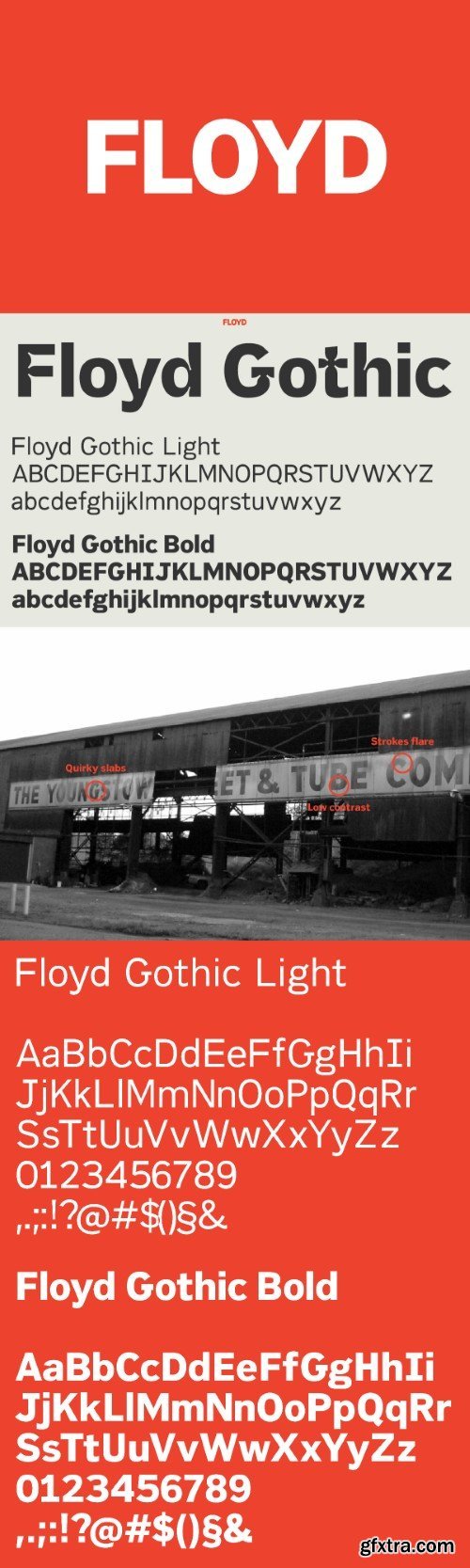
Floyd Gothic字体
Floyd is a modern furniture company with products that look good and last. The identity is focused around a custom typeface I drew. The typeface, representing the company's Rust Belt heritage, is a drawn from the letters of an old steel factory sign where the founders’ grandfather worked.